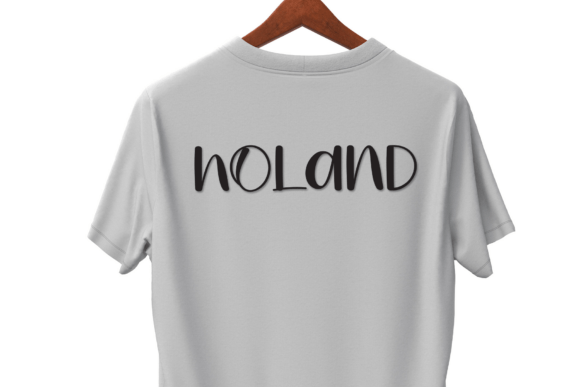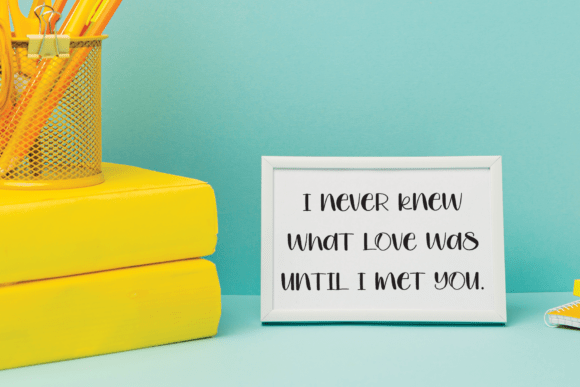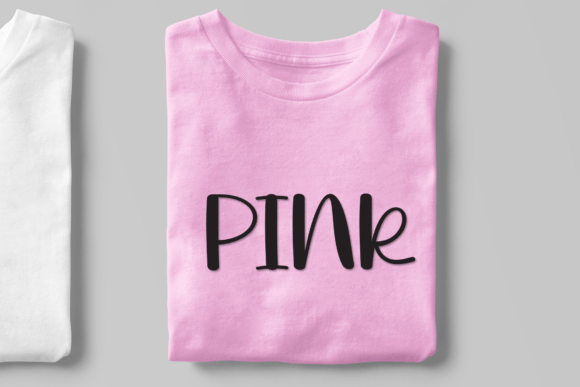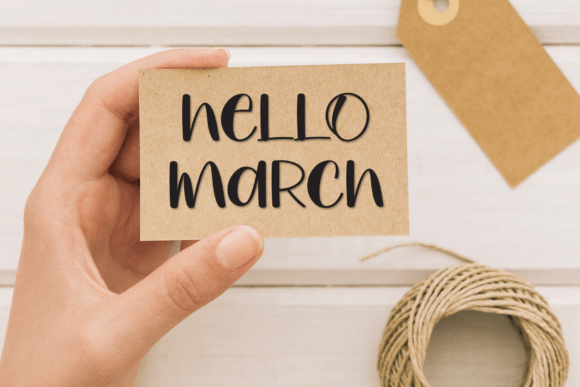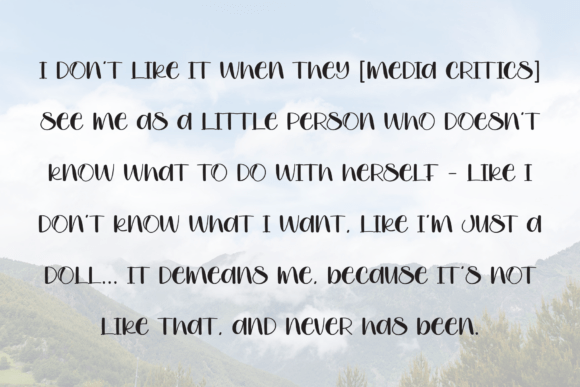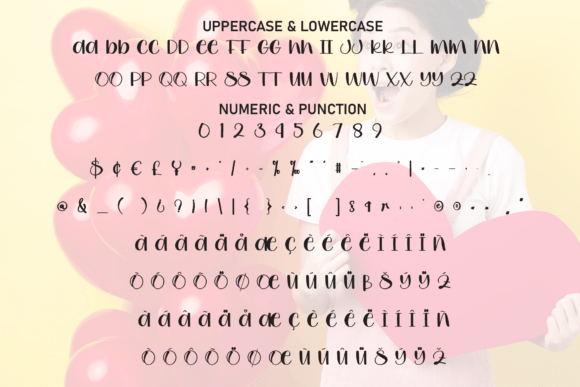
Add a Touch of Playful Warmth with Funny Valentine Font
Are you looking for a font that captures the essence of handmade charm and playful warmth? Look no further than Funny Valentine, a simple yet delightful typeface that brings a touch of whimsy to your projects. This handmade font is perfect for designers and crafters who want to add a personal touch to their creations, making them ideal for Valentine’s Day cards, gift tags, social media quotes, and children’s party stationery.
The Charm of Handmade Typography
Funny Valentine font is a celebration of unscripted creativity, featuring tall, slightly irregular letterforms with rounded terminals that give it a distinctly handmade feel. The typeface has a casual, bouncy rhythm that makes it perfect for projects that require a touch of playfulness and warmth. The font’s authentic, marker-drawn aesthetic makes it an exceptional choice for designers who want to create unique and personalized designs.
Perfect for Valentine’s Day and Beyond
While Funny Valentine font is perfect for Valentine’s Day projects, its versatility makes it suitable for a wide range of applications. Use it to create heartfelt gift tags, whimsical social media quotes, and children’s party stationery that will delight your audience. The font’s handcrafted joy and approachable sincerity make it an excellent choice for designers who want to add a personal touch to their creations.
Key Features of Funny Valentine Font
- Handmade aesthetic: Funny Valentine font features a distinctly handmade aesthetic, with tall, slightly irregular letterforms and rounded terminals.
- Casual, bouncy rhythm: The font’s casual rhythm makes it perfect for projects that require a touch of playfulness and warmth.
- Authentic, marker-drawn feel: The font’s authentic, marker-drawn aesthetic makes it an exceptional choice for designers who want to create unique and personalized designs.
- Perfect for Valentine’s Day and beyond: Funny Valentine font is suitable for a wide range of applications, from Valentine’s Day cards to children’s party stationery.
Tips for Using Funny Valentine Font
To get the most out of Funny Valentine font, here are a few tips to keep in mind:
- Pair with complementary fonts: Pair Funny Valentine font with complementary fonts to create visual interest and add depth to your designs.
- Experiment with colors: The font’s handmade aesthetic makes it perfect for experimenting with different colors and textures.
- Add embellishments: Consider adding embellishments, such as hearts or flowers, to give your designs an extra touch of whimsy.
Funny Valentine font is a delightful addition to any designer’s toolkit, offering a unique blend of handmade charm and playful warmth. With its casual, bouncy rhythm and authentic, marker-drawn aesthetic, this font is perfect for designers and crafters who want to add a personal touch to their creations. Whether you’re designing for Valentine’s Day or just want to add a touch of whimsy to your projects, Funny Valentine font is an excellent choice.